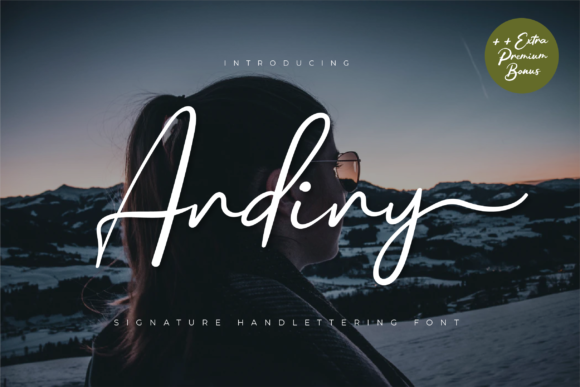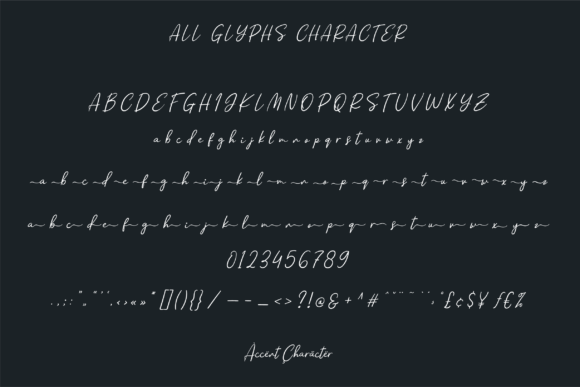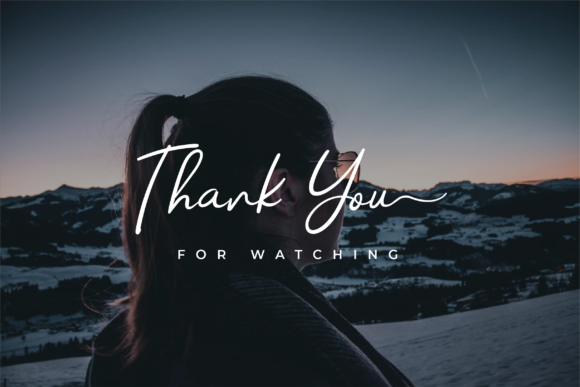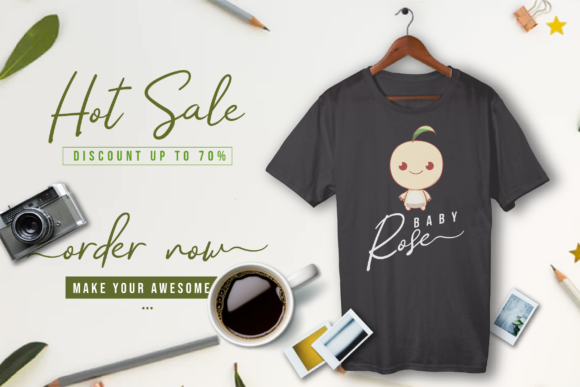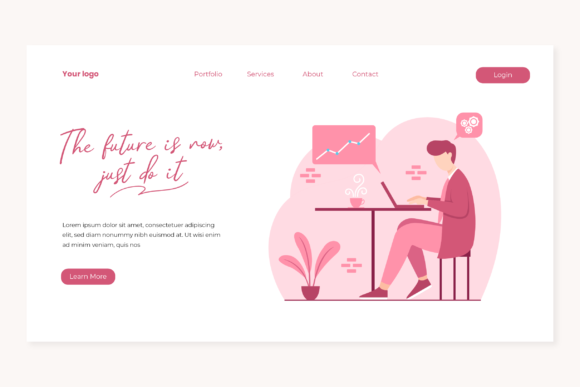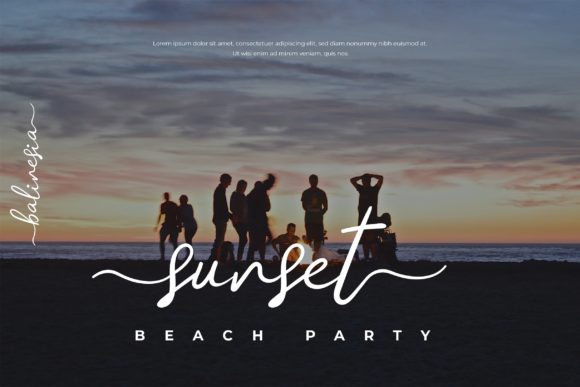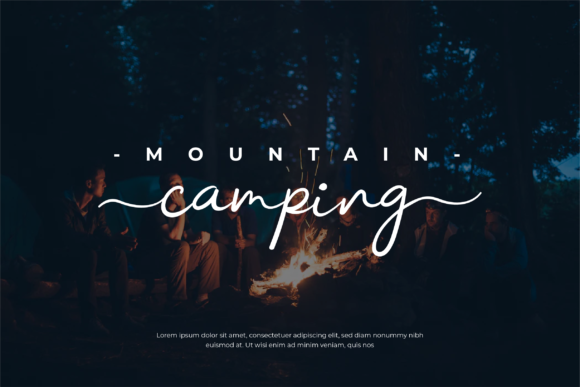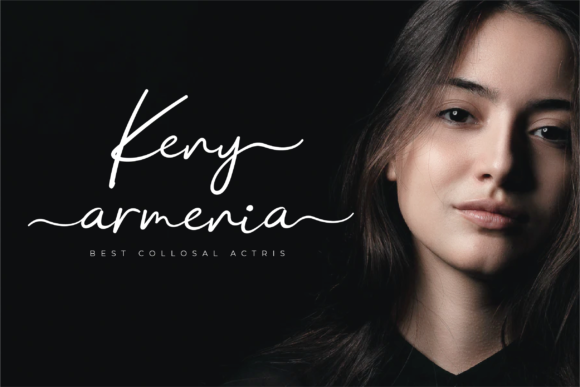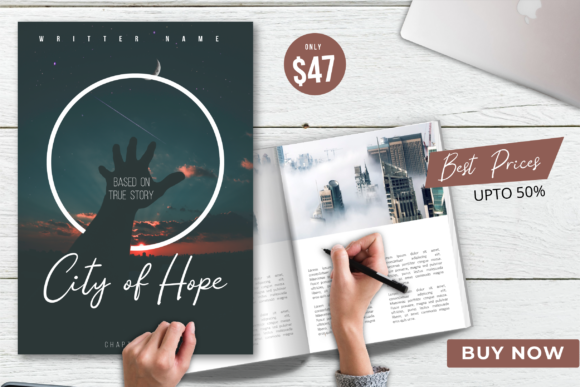
Andiny Font
About Andiny Font
Introducing Andiny, an exquisite handwritten font that effortlessly blends classic calligraphic influences with a contemporary and fresh touch. Crafted with precision and creativity, Andiny is destined to become a true favorite among designers, artists, and anyone seeking a font that exudes elegance and sophistication.
The beauty of Andiny lies in its delicate and well-balanced characters, carefully crafted to create a harmonious flow of lines and curves. Its classy calligraphic influences are evident in every stroke, evoking a sense of timeless beauty that transcends trends and styles. At the same time, the font embraces a modern and fresh approach, making it a versatile choice for a wide range of creative projects.
With Andiny, your designs will be elevated to the highest levels. Whether you’re working on wedding invitations, thank-you cards, quotes, greeting cards, logos, or business cards, this font will add a touch of elegance and charm that captures the essence of your message. Its graceful appearance is perfect for bringing a sense of luxury and sophistication to your designs, making them stand out in any context.
The versatility of Andiny extends beyond traditional paper-based projects. It will seamlessly complement digital media, social media graphics, branding materials, and more. With its timeless appeal and contemporary flair, Andiny adapts effortlessly to any platform, ensuring your designs remain captivating and memorable.
Using Andiny, you can explore various creative ideas with confidence, knowing that its distinctive style will enhance the overall aesthetic of your projects. Its flowing and elegant nature will captivate viewers, leaving a lasting impression and drawing them into the beauty of your designs.
Fall in love with Andiny and experience the joy of creating with a font that celebrates the art of calligraphy while embracing modern sensibilities. Its timeless elegance and fresh charm make it a font that stands the test of time, and it’s sure to become an essential tool in your creative arsenal.
In conclusion, Andiny is an exquisite handwritten font that combines classic calligraphic influences with contemporary freshness. Its delicate and well-balanced characters exude elegance and sophistication, making it a true favorite among designers and artists. Whether used for traditional or digital projects, Andiny’s timeless appeal and versatile nature ensure that your creations will reach the highest levels of beauty and impact.